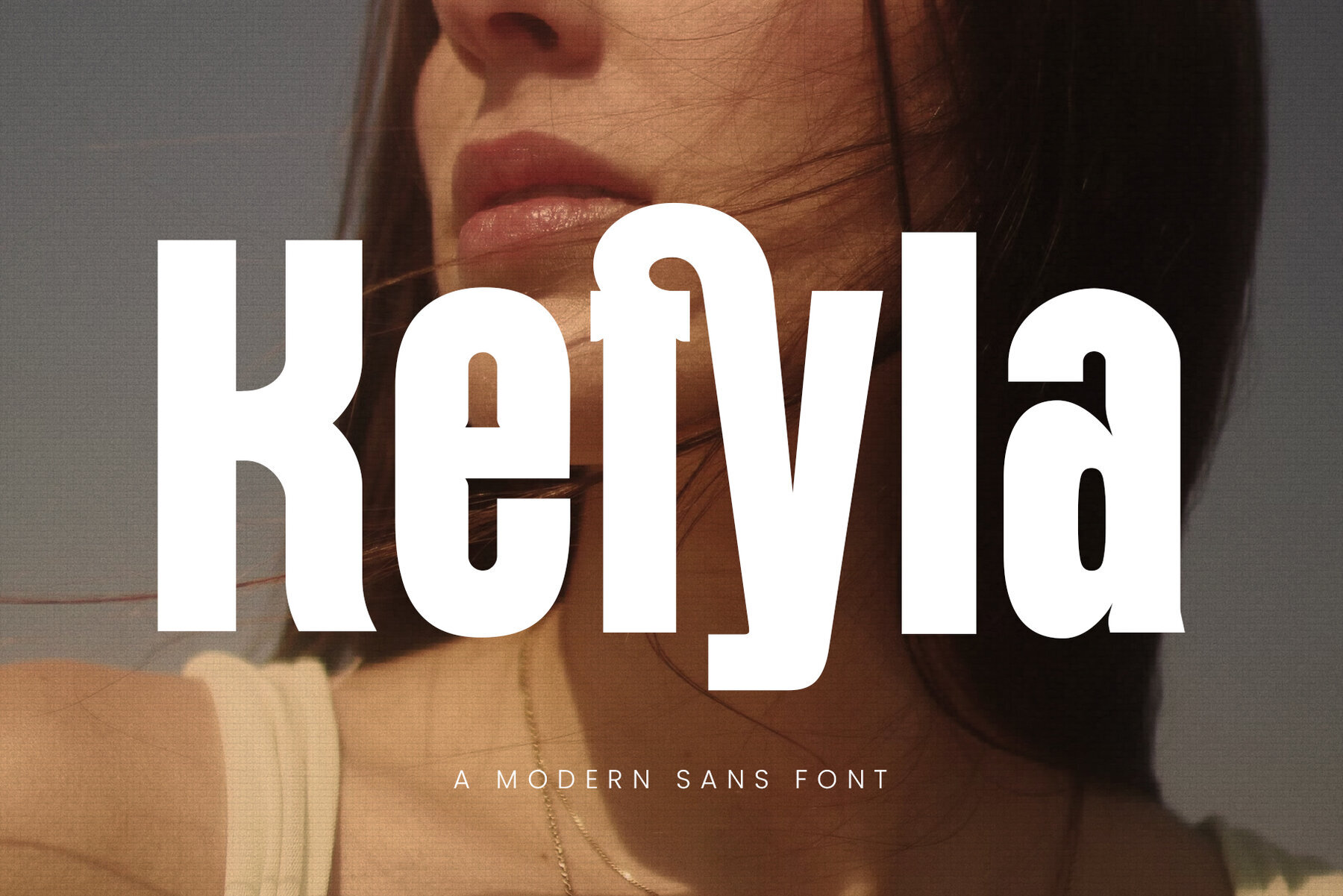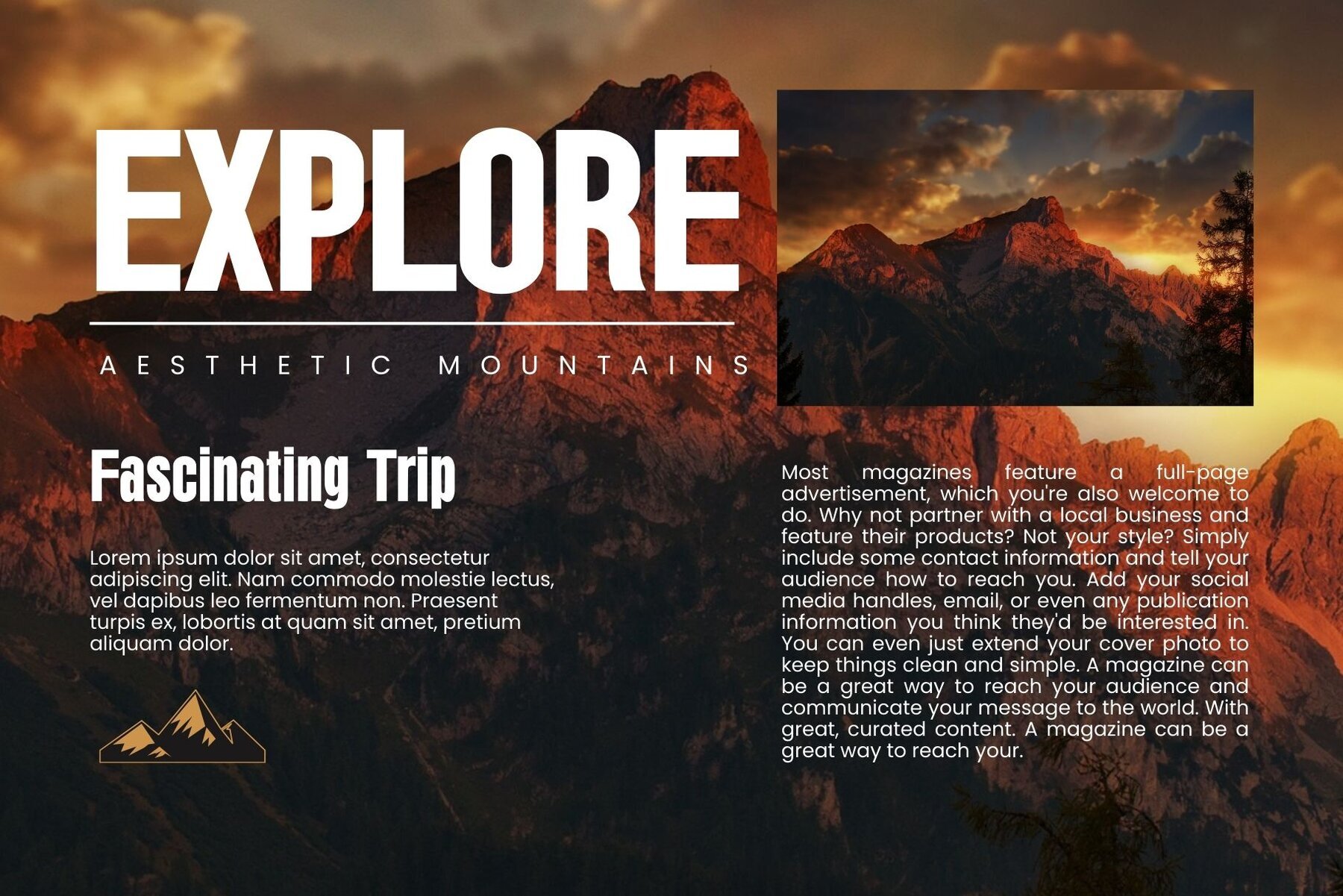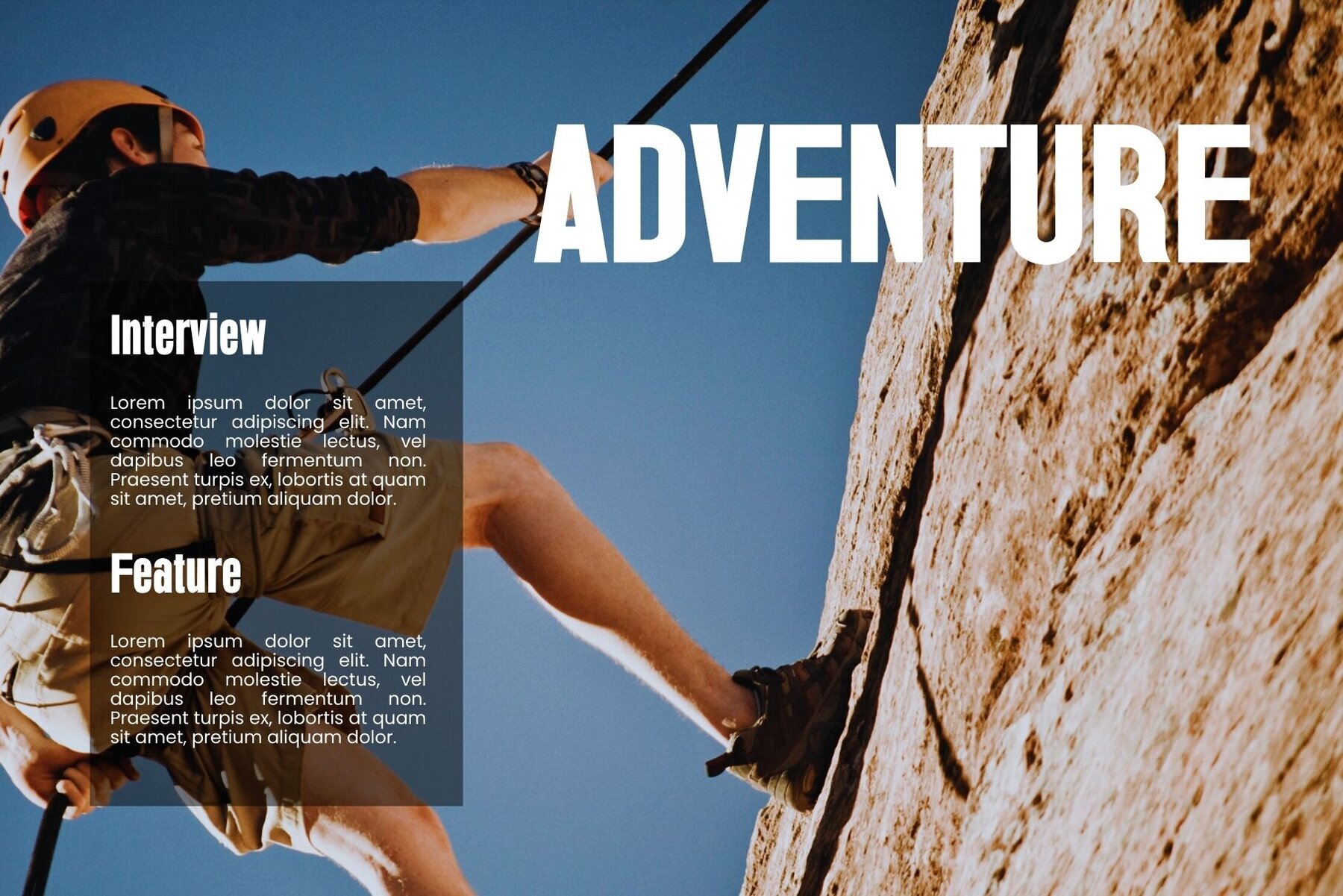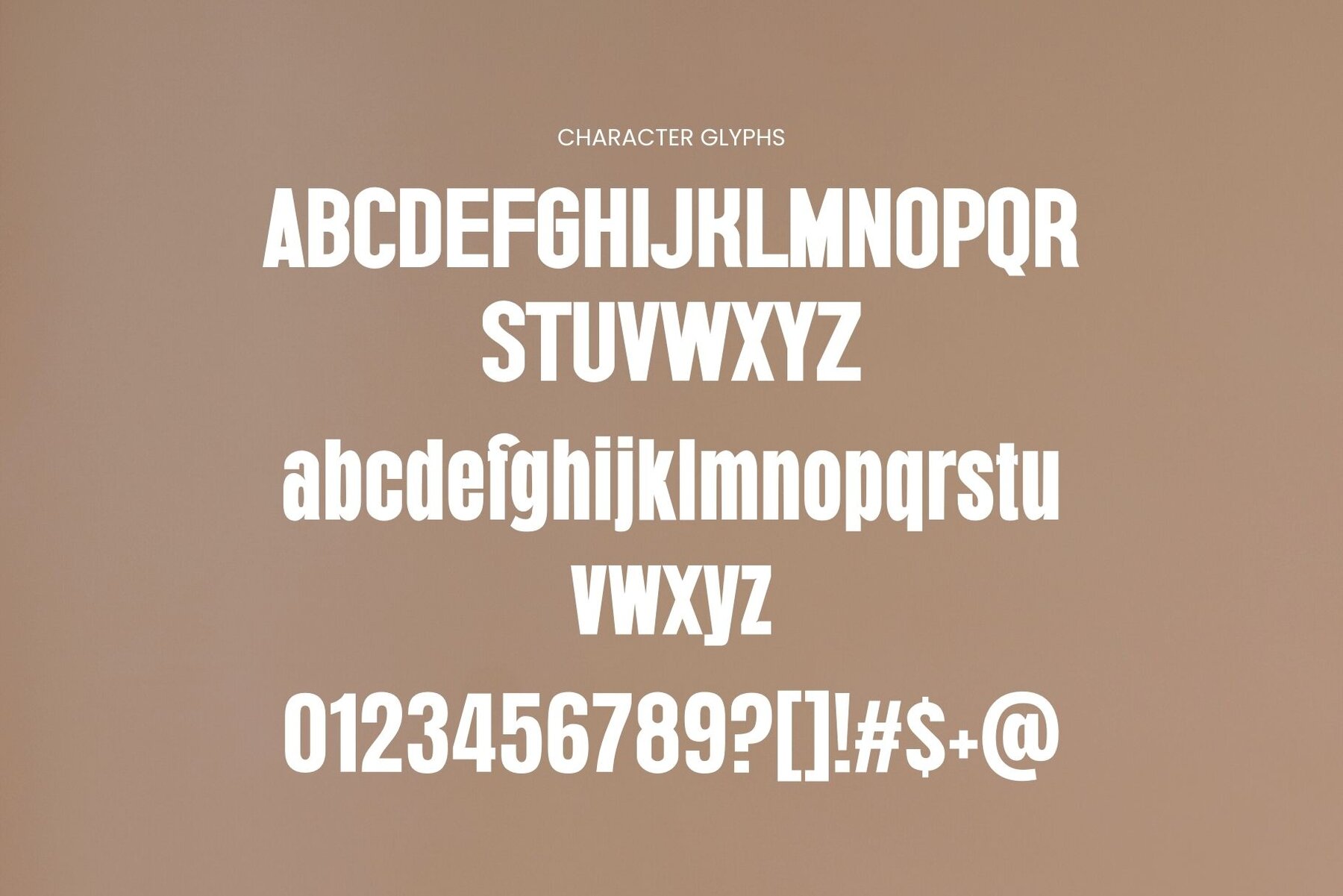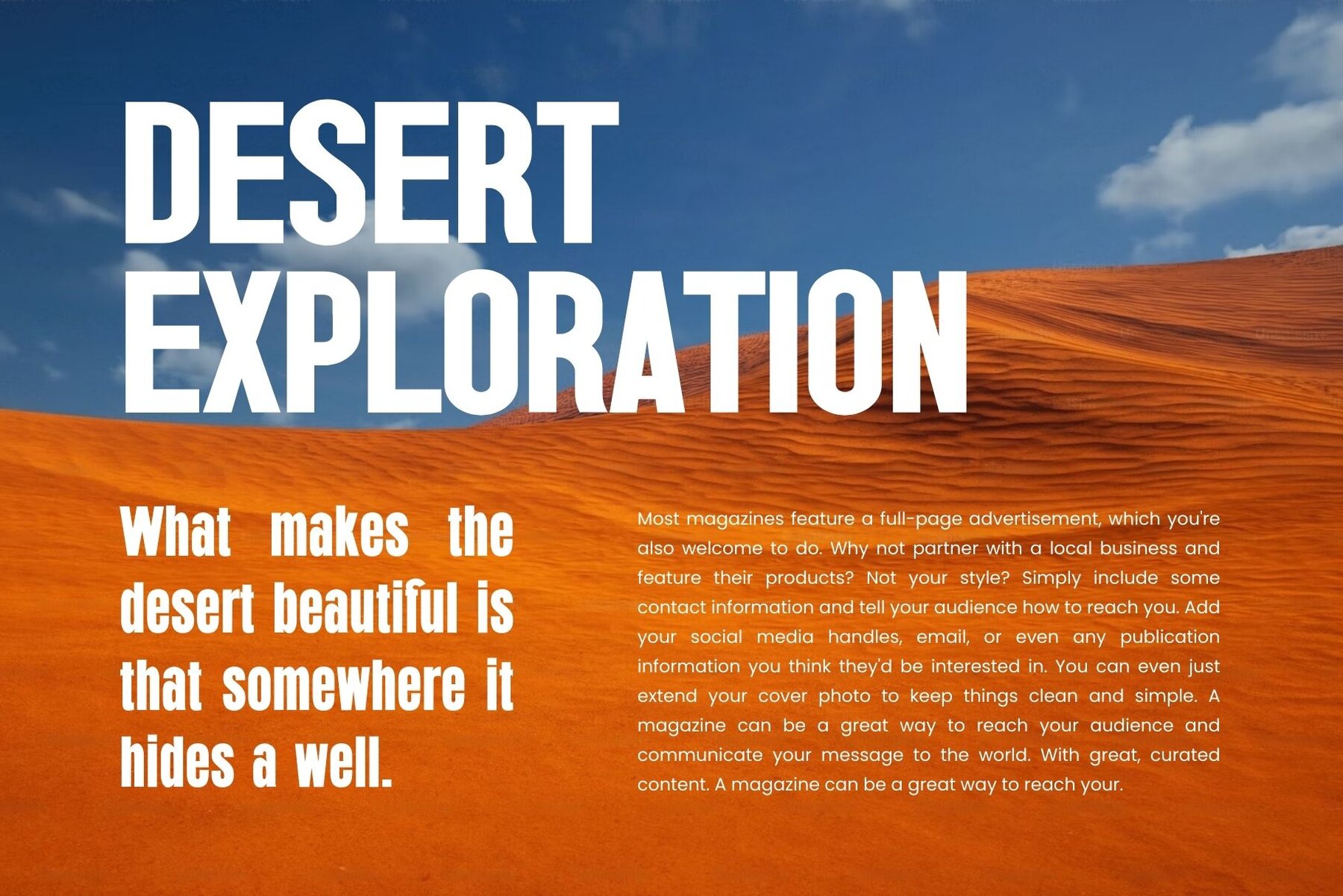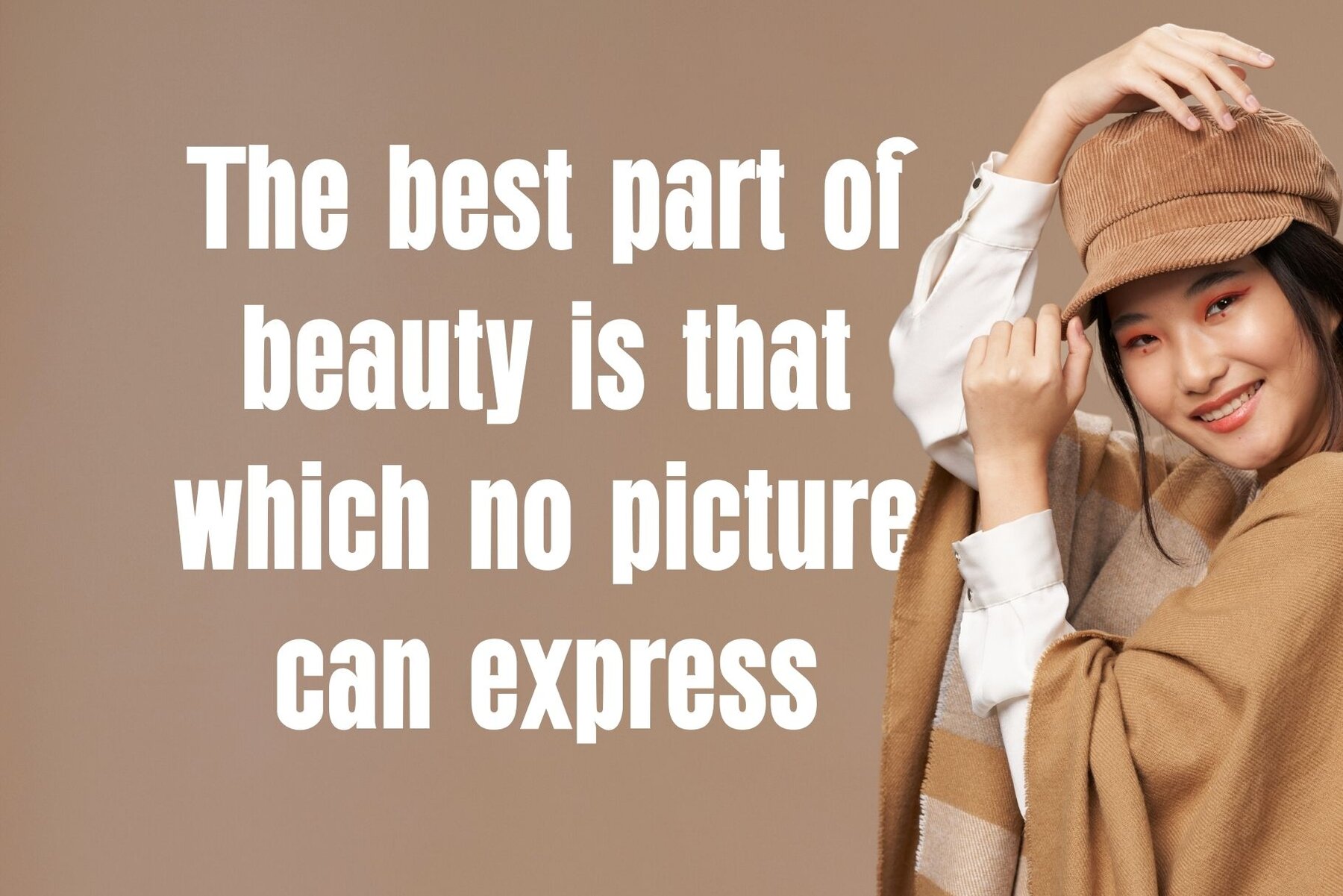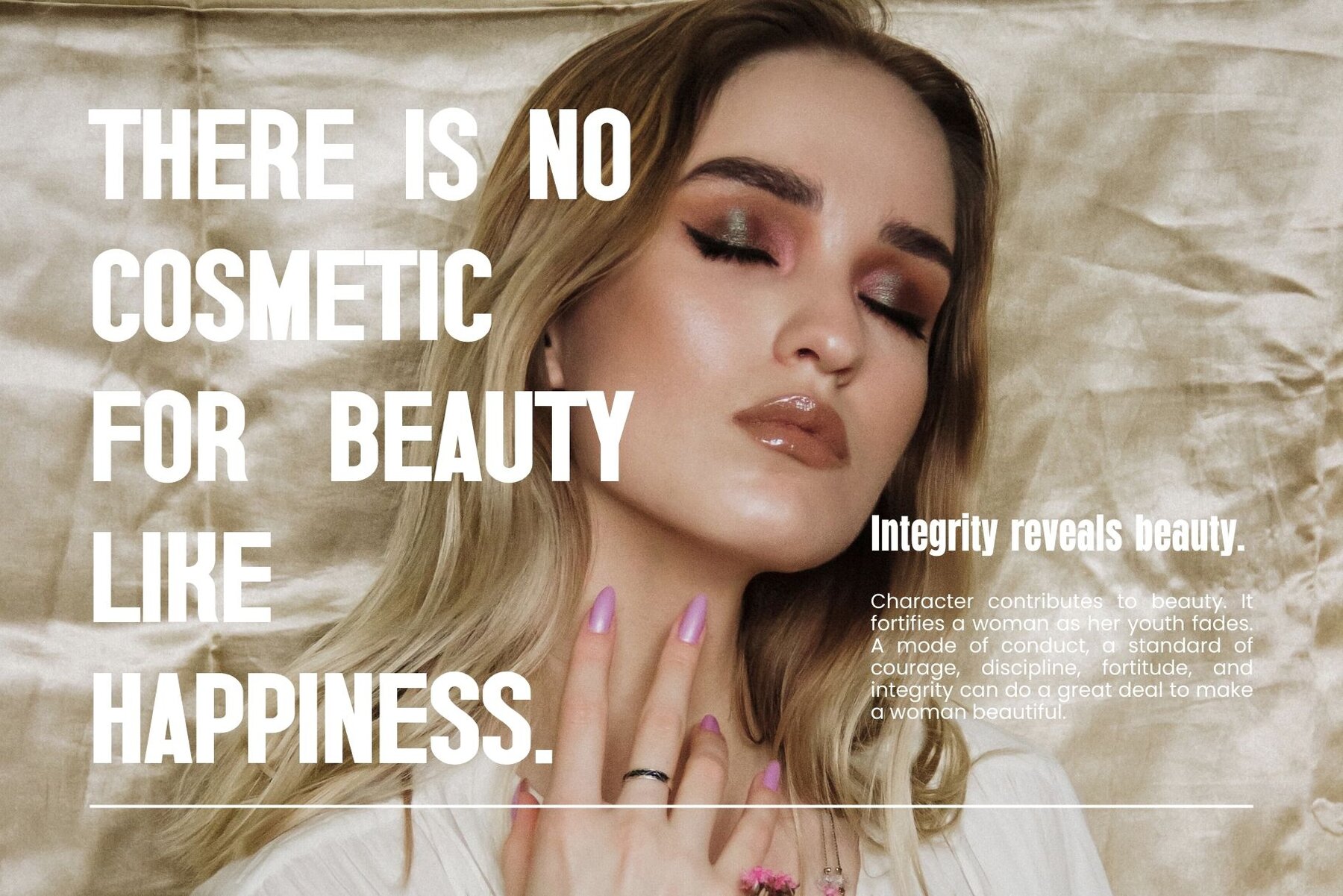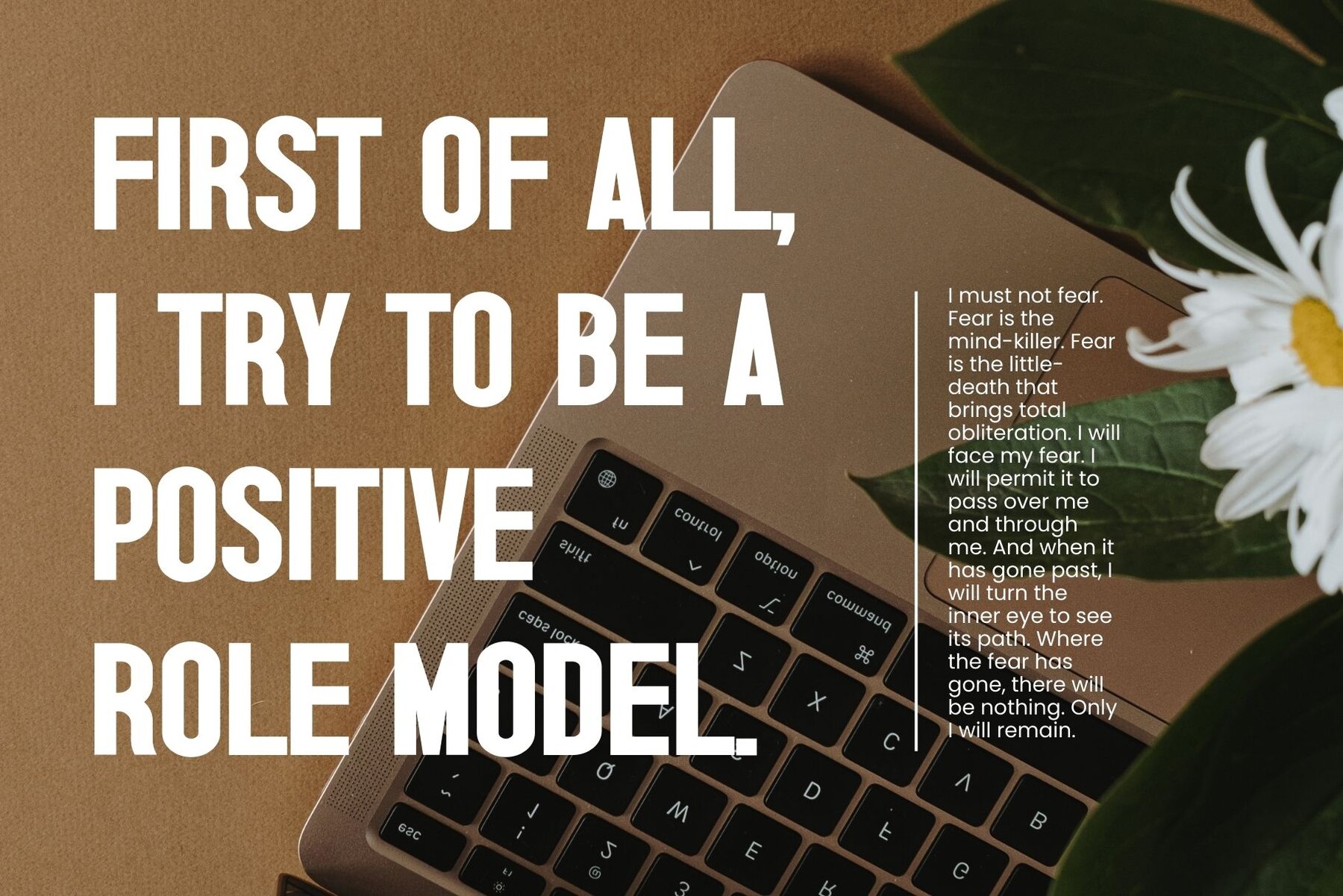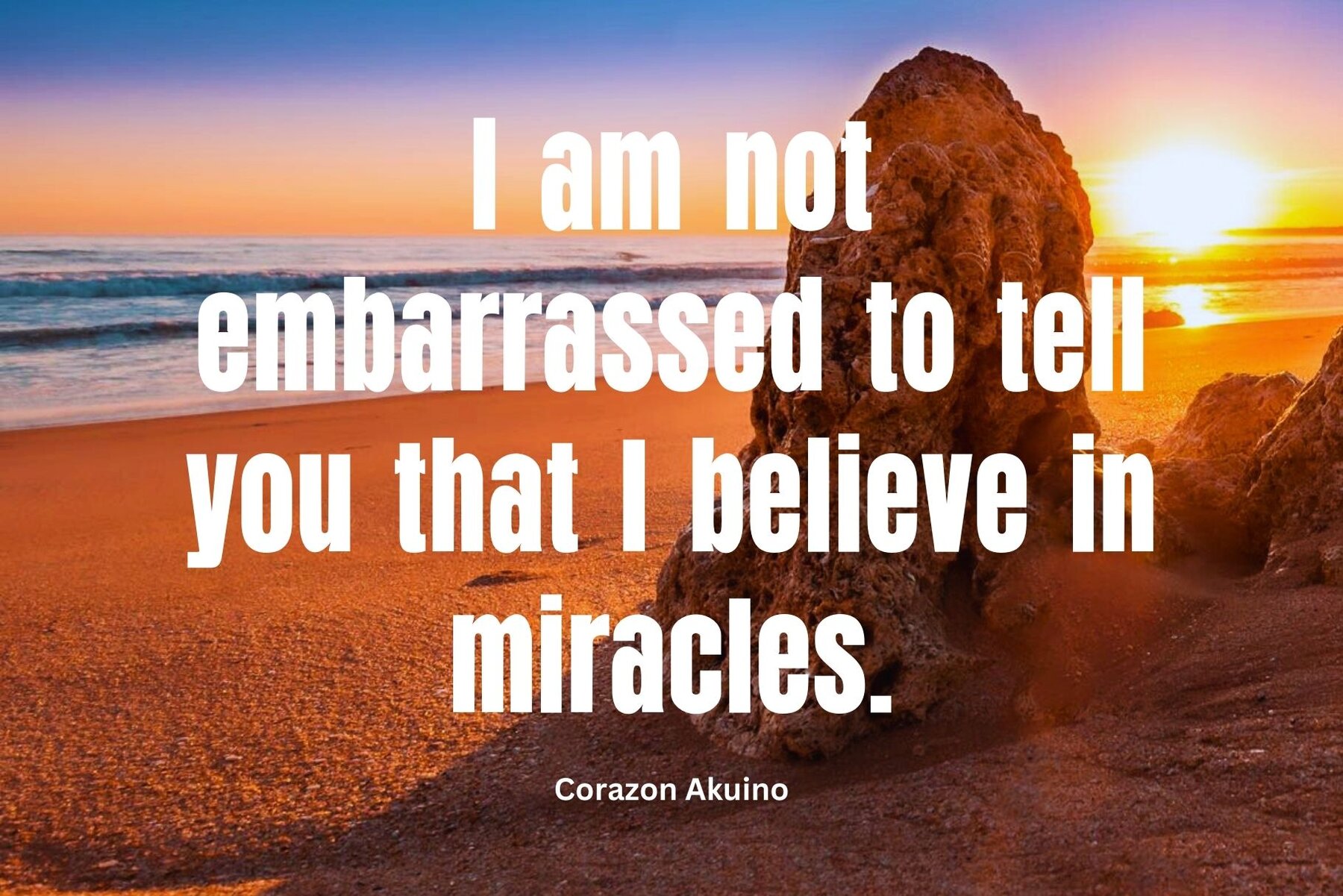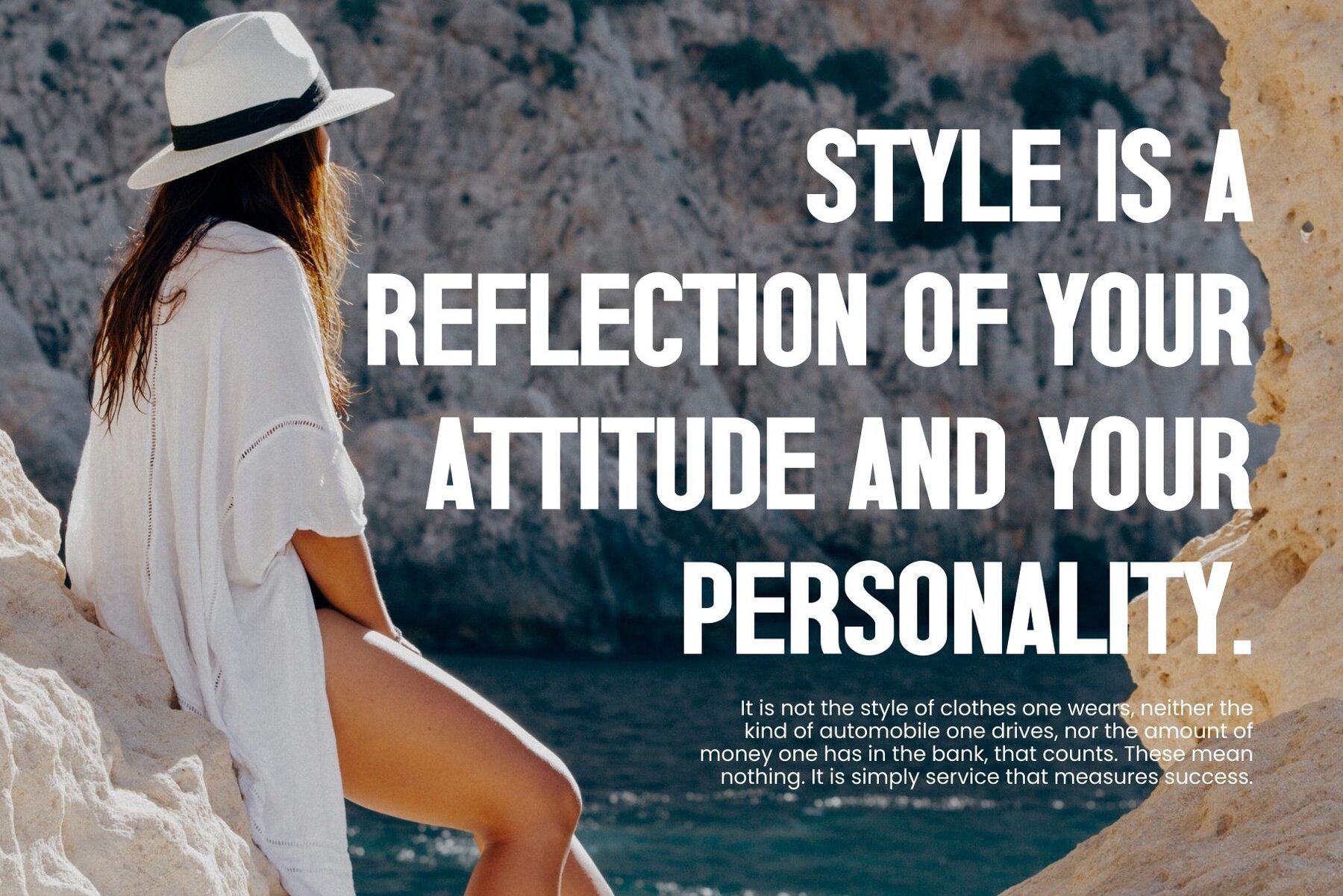
Kefyla Font
Kefyla Regular
Embrace the beauty of simplicity with Kefyla, a typeface crafted by Graphicxell to echo the essence of minimalist logo design. Ideal for creating sophisticated templates and brochures, Kefyla lends its elegant strokes to projects ranging from advertising branding to video design. Its versatile nature makes it an excellent choice for both logos and invitations, providing a polished touch to every piece. Whether you're working on layout designs or beauty projects, Kefyla offers a seamless blend of modern aesthetics and classic elegance, making it a go-to resource for designers.Kefyla: A Minimalist Typeface for Modern Design